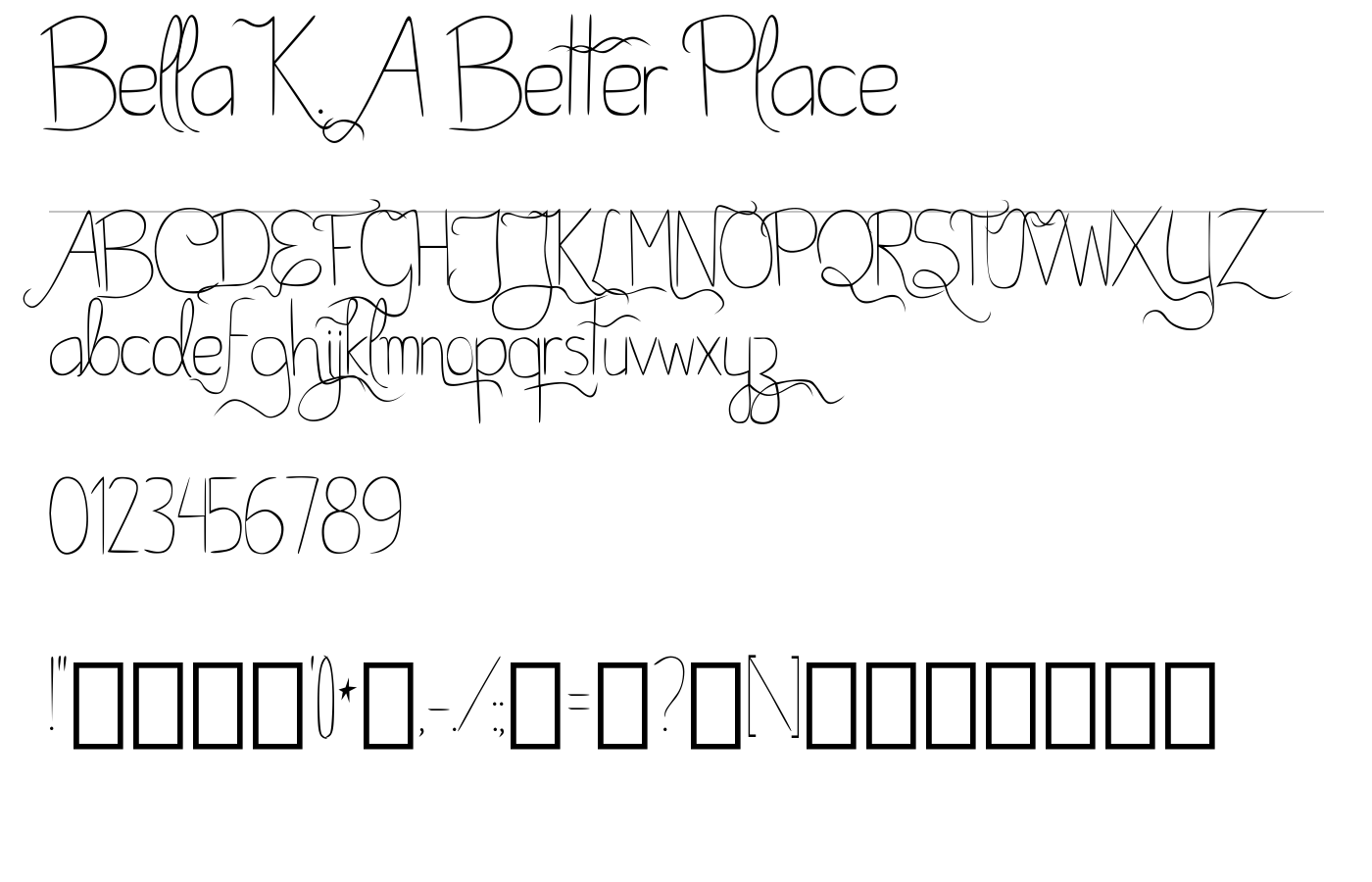
Bella K. A Better Place is a delicate, whimsical handwritten font featuring thin, flowing lines and elegant decorative swirls that give it a light, airy feel. Its tall, narrow letterforms with playful curls make it ideal for creative, artistic projects that seek a charming and graceful personality. This font works best in invitations, greeting cards, or branding that wants to convey a sense of uniqueness and refined creativity.
Bella K. A Better Place Font